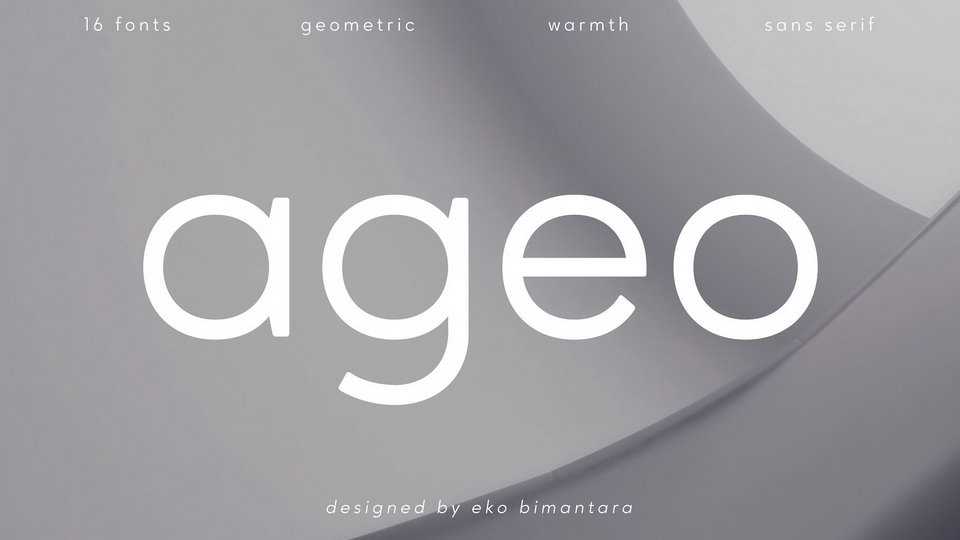
Download Ageo typeface, a geometric sans serif typeface in eight weights. Ageo shown a clean, minimalist, elegant, warmth, quirky, yet still purposed to be versatile and easy to read.